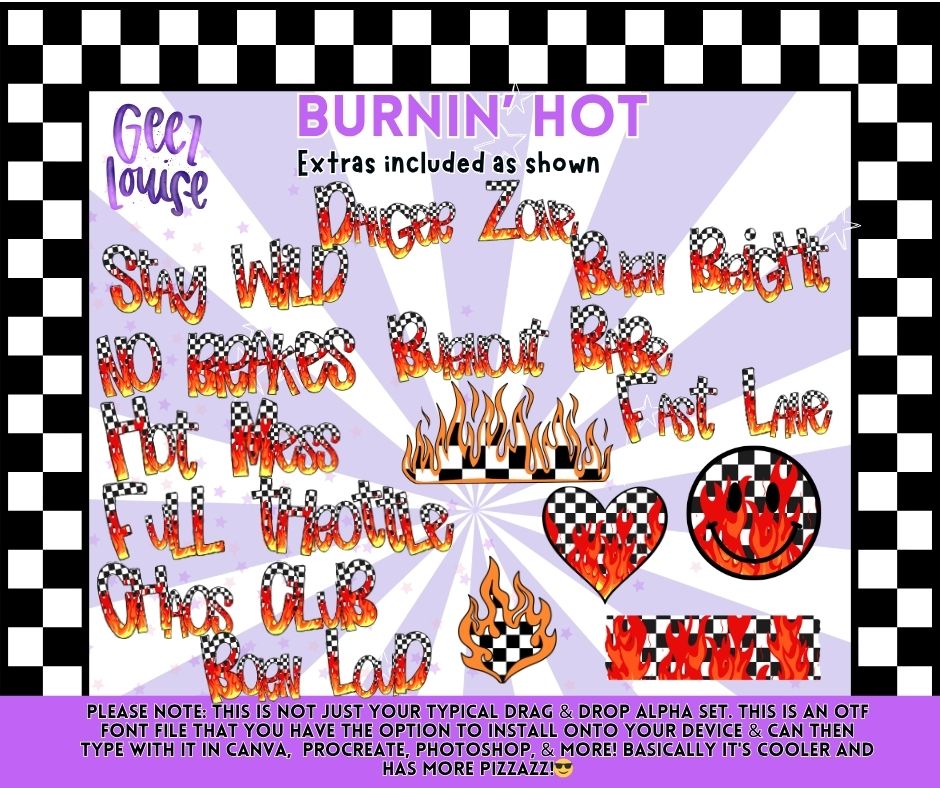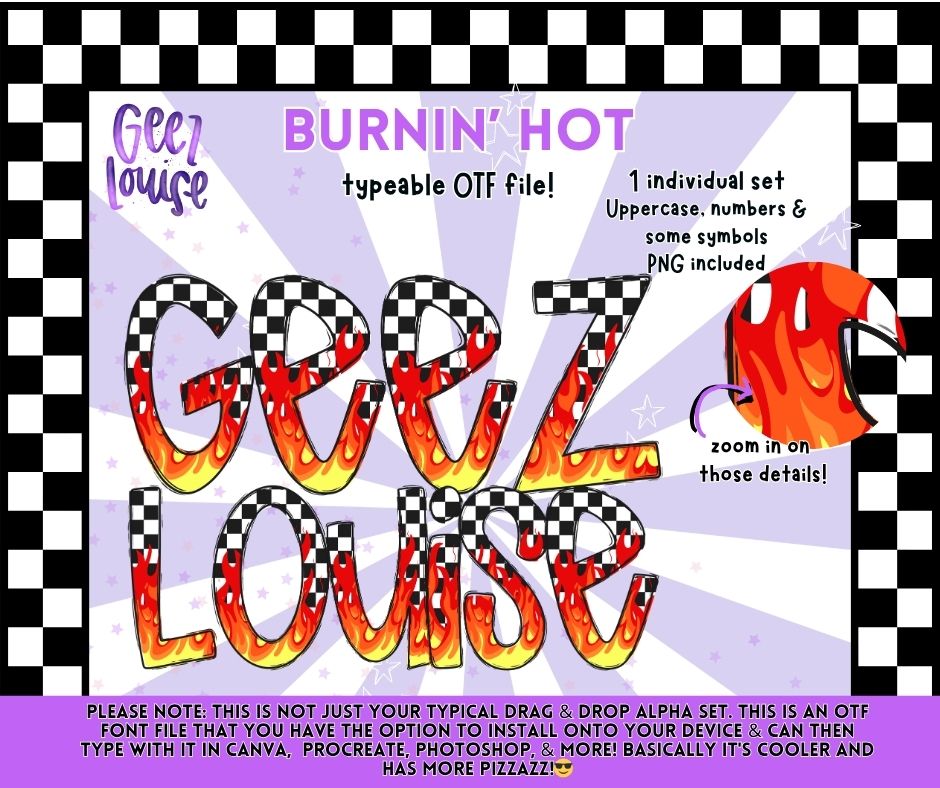
Burnin’ Hot OTF Font & PNG Alpha Bundle | Checkerboard Flame Retro Alphabet Set
Warning: this alpha set may spontaneously increase your cool factor. 🔥🏁😎
The Burnin’ Hot alpha bundle brings together bold checkerboard patterns and blazing flame details for the ultimate retro street-racing vibe. This set includes a fully typeable OTF font file PLUS PNG alpha elements so you can create fast, loud, chaotic designs with ease.
Packed with matching extras and ready-to-use phrases, this set is perfect for edgy apparel, sublimation, stickers, tumblers, and bold boutique graphics.
🏁 Included Phrase Graphics:
- Stay Wild
- Danger Zone
- Born Bad
- No Brakes
- Rideout Babe
- Road Rocket
- Hot Mess
- Fast Lane
- Full Throttle
- Girls Club
- Burn Loud
🎨 Design Features:
- Retro Checkerboard Pattern
- Layered Flame Artwork
- Hand-Drawn Style
- Bold Y2K / Punk Energy
- Racing Inspired Aesthetic